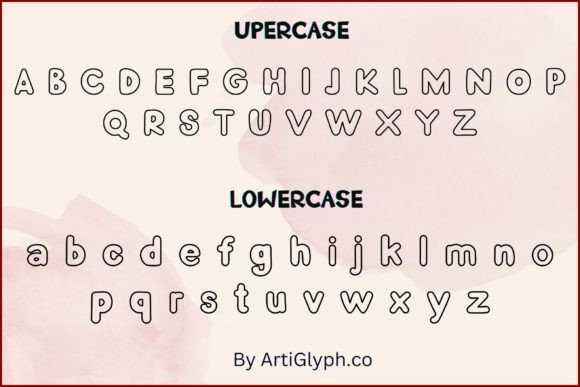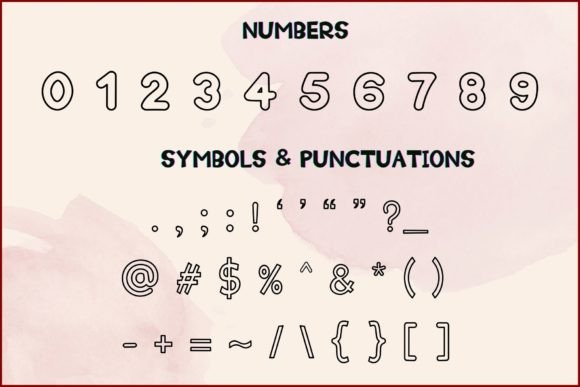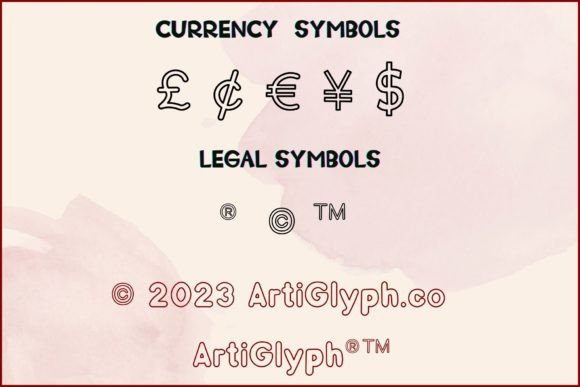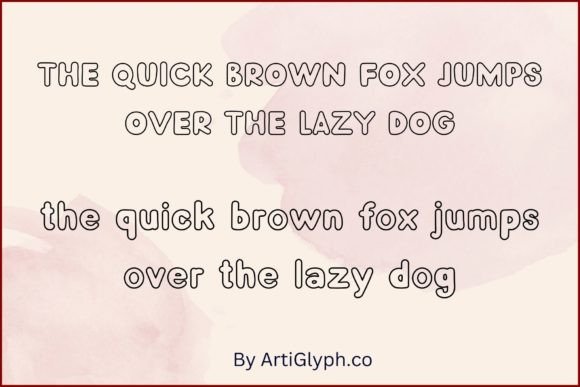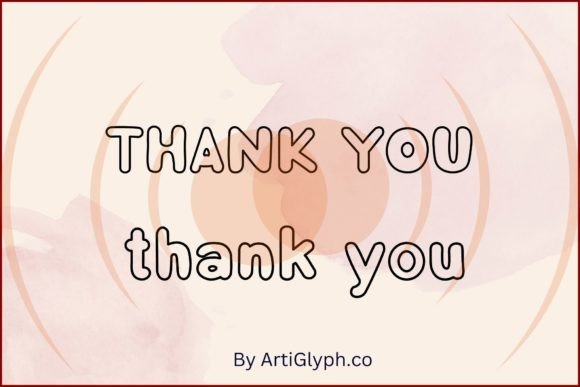
Echolite Outline Font: Add a Touch of Whimsy to Your Designs
In the world of typography, fonts play a crucial role in conveying the tone and personality of a design. If you’re looking for a font that exudes a sense of fun, quirkiness, and individuality, look no further than the Echolite Outline Font. This modern, cute handwritten font is perfect for designers and crafters who want to add a touch of uniqueness to their projects.
What is Echolite Outline Font?
Echolite Outline is a modern, handwritten font that boasts an irregular and playful letterform. Its natural, handwritten style adds a charming and personal feel to any project, making it perfect for designs that require a touch of whimsy. The font’s quirky personality shines through in its unique and irregular letterforms, which create a sense of individuality and fun.
Key Features of Echolite Outline Font
- Modern and Cute: Echolite Outline Font has a modern and cute appeal that makes it perfect for designs that require a fresh and youthful look.
- Handwritten Style: The font’s natural, handwritten style adds a charming and personal feel to any project.
- Irregular Letterforms: The font’s irregular and playful letterforms create a sense of whimsy and individuality.
- Quirky Personality: Echolite Outline Font has a fun and quirky personality that shines through in its unique and irregular letterforms.
Uses of Echolite Outline Font
Echolite Outline Font is a versatile font that can be used in a variety of design projects, including:
- Branding and Logo Design: The font’s unique and quirky personality makes it perfect for branding and logo design projects that require a touch of individuality.
- Social Media Graphics: Echolite Outline Font can be used to create fun and engaging social media graphics that stand out from the crowd.
- Invitations and Party Decor: The font’s playful and whimsical nature makes it perfect for invitations and party decor designs.
- Crafting and DIY Projects: Echolite Outline Font can be used in a variety of crafting and DIY projects, such as scrapbooking, card making, and journaling.
Tips for Using Echolite Outline Font
Here are some tips for using Echolite Outline Font in your designs:
- Pair with Other Fonts: Echolite Outline Font can be paired with other fonts to create a unique and interesting contrast.
- Use in Large Sizes: The font’s playful and whimsical nature is best showcased in large sizes.
- Experiment with Colors: Echolite Outline Font can be used with a variety of colors to create a unique and eye-catching design.
| Font Name | Echolite Outline Font |
| Author | ARTify |
Echolite Outline Font is a modern, cute handwritten font that adds a touch of whimsy and individuality to any design project. Its irregular and playful letterforms create a sense of fun and quirkiness, making it perfect for designs that require a unique and youthful look. With its versatility and charm, Echolite Outline Font is a must-have for designers and crafters looking to add a personal touch to their projects.